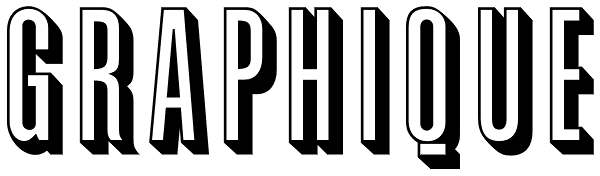
Graphique Pro
Graphique was originally created by Swiss designer Hermann Eidenbenz in 1945, and issued as hot metal font by Haas’sche Schriftgießerei, Switzerland. German type designer Ralph M. Unger digitally remastered and expanded the typeface for profonts...